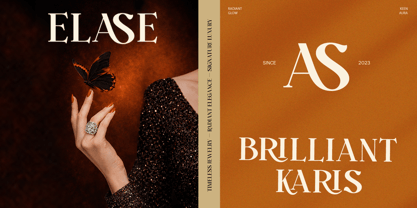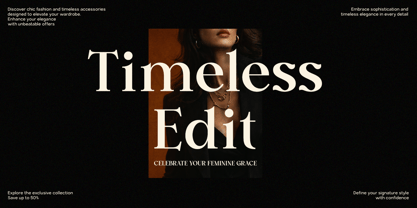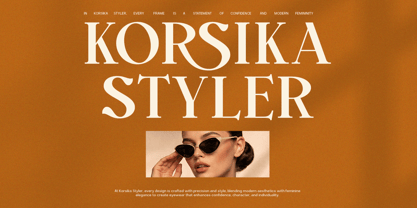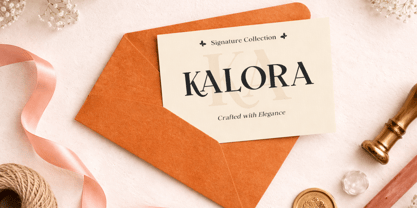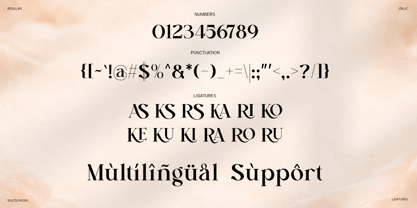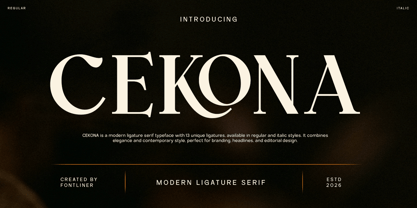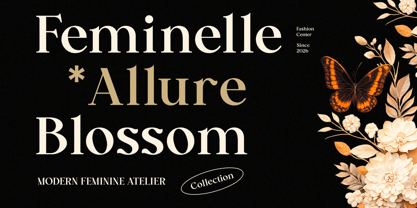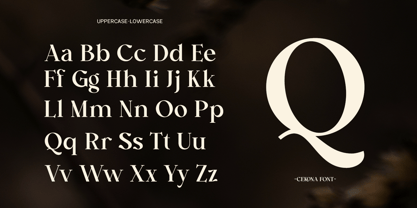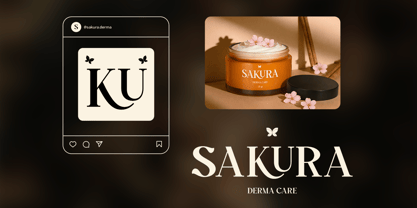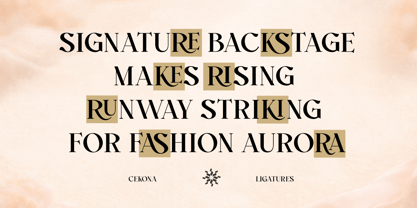
Cekona
Cekona is a modern ligature serif typeface crafted to bring refined elegance into contemporary design. With its distinctive high-contrast strokes and carefully designed ligatures, Cekona delivers a sophisticated visual rhythm that feels both timeless and fresh. The balance between sharp structure and smooth curves makes it ideal for designers who want to create a striking yet polished identity.
Designed with versatility in mind, Cekona comes with 13 unique ligatures that elevate typography into a more expressive and memorable experience. Whether used in branding, editorial layouts, or high-impact headlines, this typeface adds a unique character without overwhelming the composition. Its clean proportions and stylish letterforms ensure readability while maintaining a strong visual presence.
Perfect for branding, logos, magazines, fashion campaigns, packaging, and modern business identities, Cekona adapts seamlessly across various creative needs. Available in both regular and italic styles, it gives designers the flexibility to build cohesive and dynamic typographic systems with ease.
- Stylistic Ligatures
- Multilingual Support